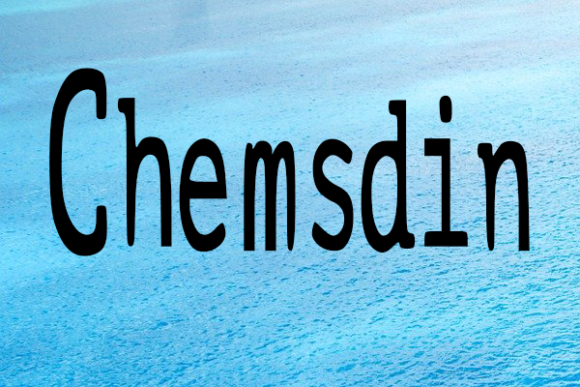
Introducing ChemsDin Font: The Ultimate Slab Serif for Designers
In the world of typography, fonts play a crucial role in conveying messages, evoking emotions, and creating visual identities. For designers, crafters, and creative enthusiasts, finding the right font can be a daunting task. However, if you’re looking for a simple yet bold slab serif font that can elevate your designs, look no further than ChemsDin Font.
What is ChemsDin Font?
ChemsDin is a stunning slab serif font that exudes professionalism and elegance. Its clean lines, precise curves, and bold structure make it perfect for a wide range of design applications. Whether you’re working on film posters, headlines, block letters, subheadings, logo designs, or any other creative project, ChemsDin is an excellent choice.
Key Features of ChemsDin Font
- Simple yet Bold: ChemsDin’s slab serif design strikes the perfect balance between simplicity and boldness, making it easy to read and visually appealing.
- Professional and Elegant: The font’s clean lines and precise curves give it a professional and elegant look that’s perfect for high-end designs.
- Versatile: ChemsDin is suitable for a wide range of design applications, from film posters and headlines to logo designs and subheadings.
- Easy to Read: The font’s clear and concise structure makes it easy to read, even at smaller font sizes.
Use Cases for ChemsDin Font
ChemsDin’s versatility makes it an excellent choice for various design projects. Here are some use cases where ChemsDin shines:
- Film Posters: Create eye-catching film posters with ChemsDin’s bold and elegant font.
- Headlines and Subheadings: Use ChemsDin to create clear and concise headlines and subheadings that grab attention.
- Logo Designs: Design professional and memorable logos with ChemsDin’s clean and precise curves.
- Block Letters: Create stunning block letters with ChemsDin’s bold and elegant font.
Why Choose ChemsDin Font?
With so many fonts available, why choose ChemsDin? Here are some compelling reasons:
- Unique Design: ChemsDin’s slab serif design sets it apart from other fonts, making it a unique addition to your font library.
- High-Quality: ChemsDin is a high-quality font that’s designed to deliver exceptional results in various design applications.
Tips for Using ChemsDin Font
To get the most out of ChemsDin, here are some tips:
- Experiment with Font Sizes: ChemsDin looks great at various font sizes, so experiment to find the perfect size for your design.
- Pair with Other Fonts: Pair ChemsDin with other fonts to create a unique and visually appealing typography.
- Use in Combination with Images: Use ChemsDin in combination with images to create stunning visual designs.
In conclusion, ChemsDin Font is an exceptional slab serif font that’s perfect for designers, crafters, and creative enthusiasts. Its simple yet bold design, professional and elegant look, and versatility make it an excellent choice for various design applications. Whether you’re working on film posters, headlines, block letters, subheadings, logo designs, or any other creative project, ChemsDin is a great addition to your font library.